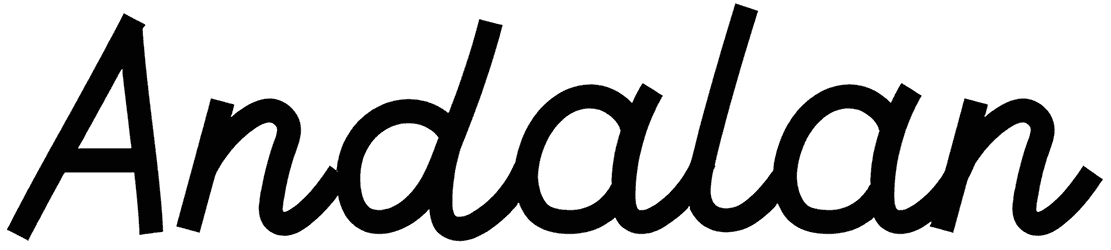
Andalan Font
Andalan is a very readable and simple handwritten font that doesn’t distract the viewer from your main content by using extra decorations. This original and valuable font has a minimal style that expertly establishes connections between letters and can be very suitable for display in digital programs.
It’s ideal for designing the cover of textbooks and mobile intellectual games. So if you are looking for a script font with balanced and modern curves, we suggest adding Andalan to the collection.